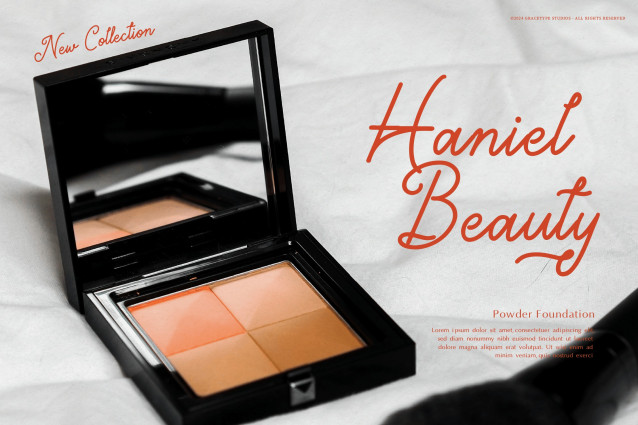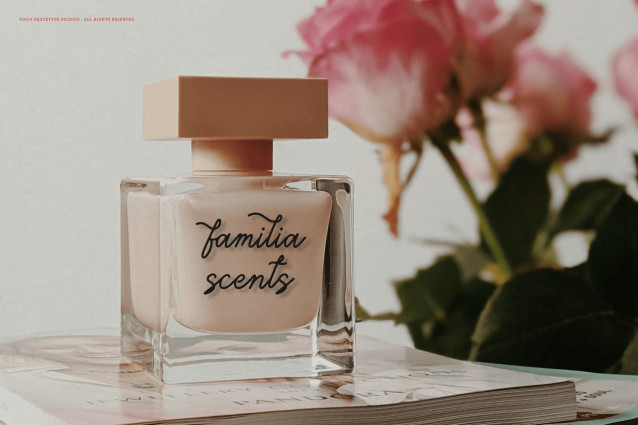
Marylona Monoline Font
Marylona Monoline Font, from Gracetypestudio, suitable for any projects such as: logos, branding projects, homeware designs, product packaging, mugs, quotes, posters, shopping bags, t-shirts, book covers, name card, invitation cards, greeting cards, label, photography, watermark, special events, and all your other lovely projects that need a Monoline Script font taste.